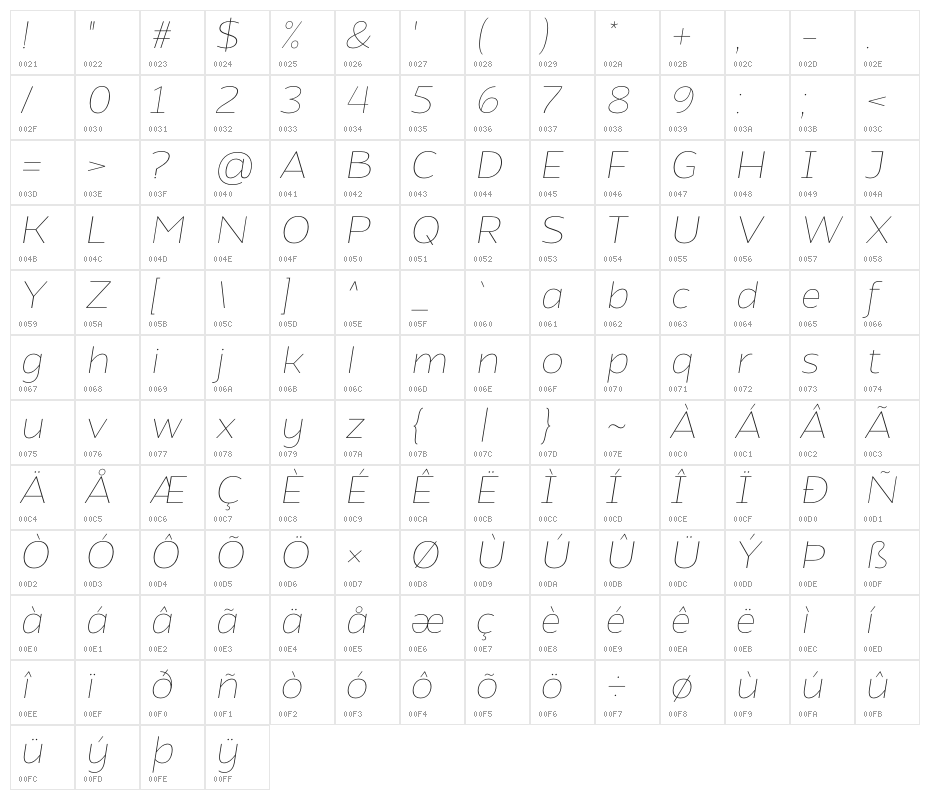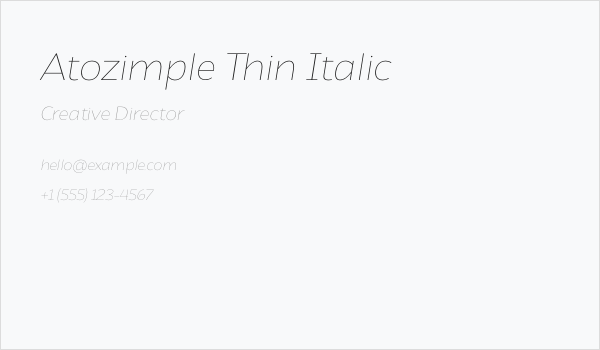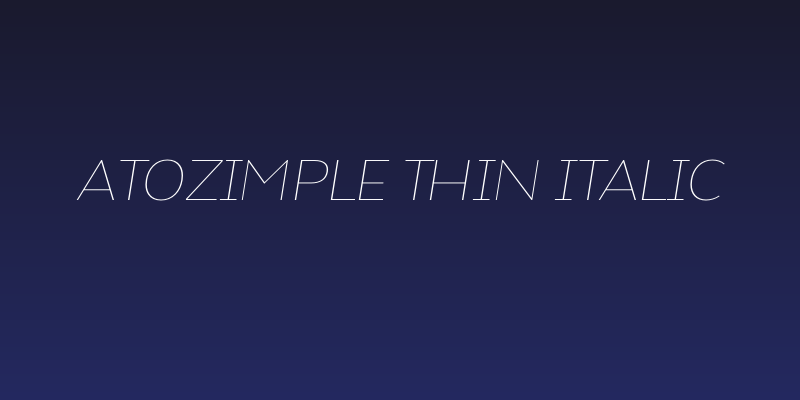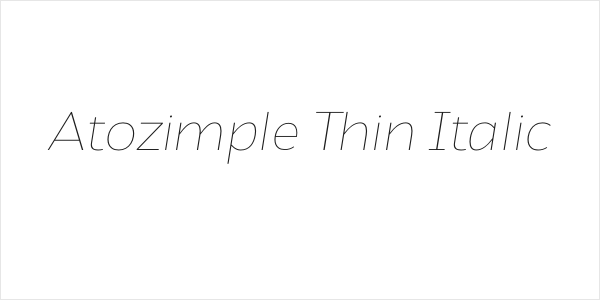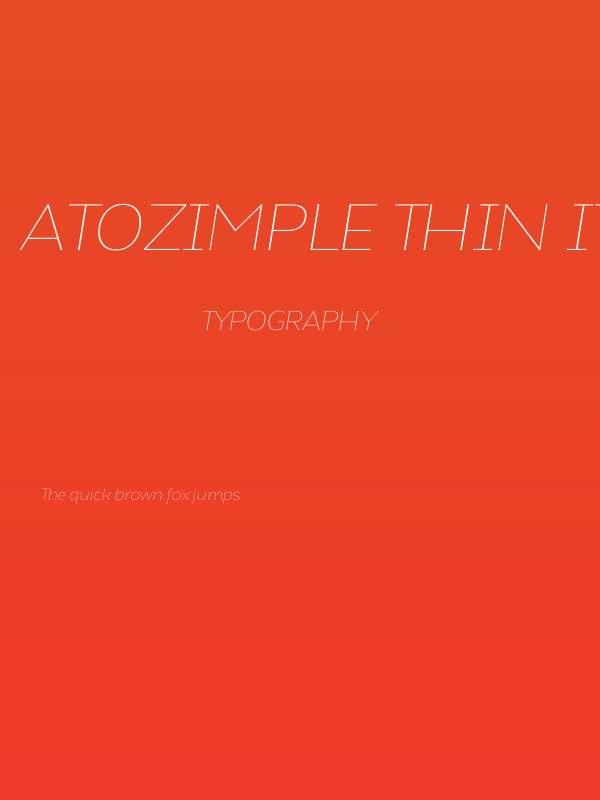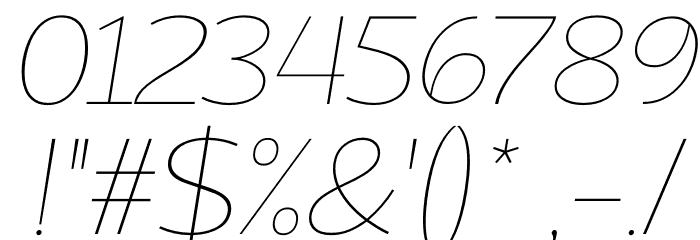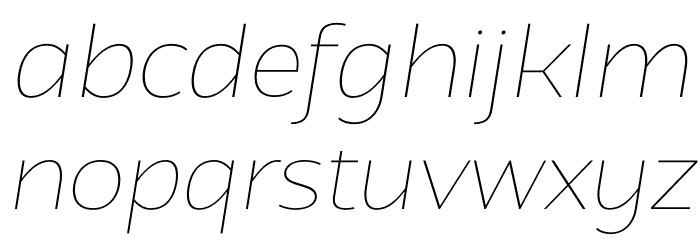
Atozimple Thin Italic Font
Atozimple Thin Italic Description
This font features a sleek and modern design with a thin, elegant structure. The characters are slightly slanted, giving it an italicized appearance that adds a touch of sophistication. The strokes are consistently thin, contributing to a light and airy feel. The font maintains a clean and minimalist aesthetic, making it versatile for various design applications. Its geometric shapes and smooth curves enhance readability while maintaining a stylish and contemporary look. The spacing between characters is balanced, ensuring clarity and legibility across different sizes.